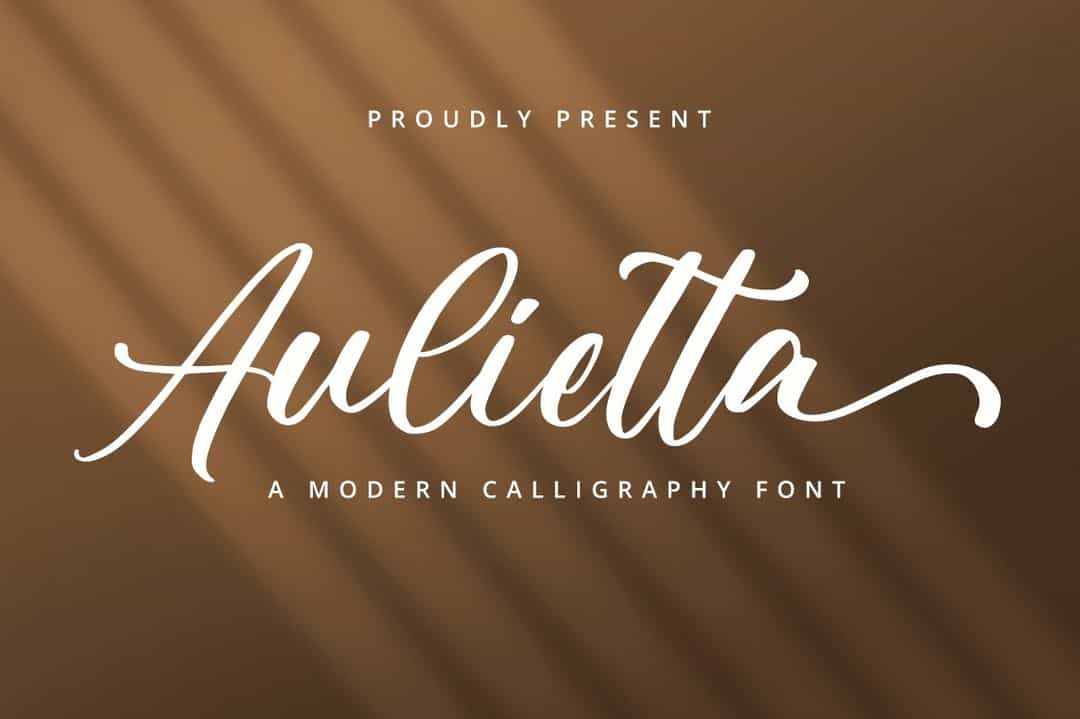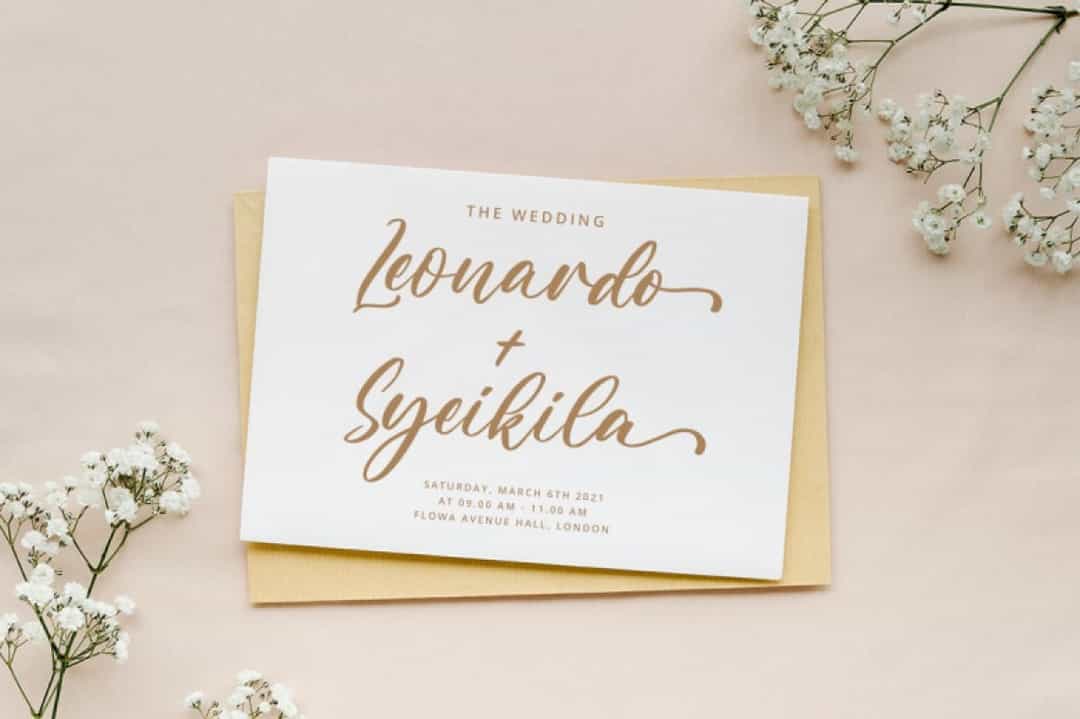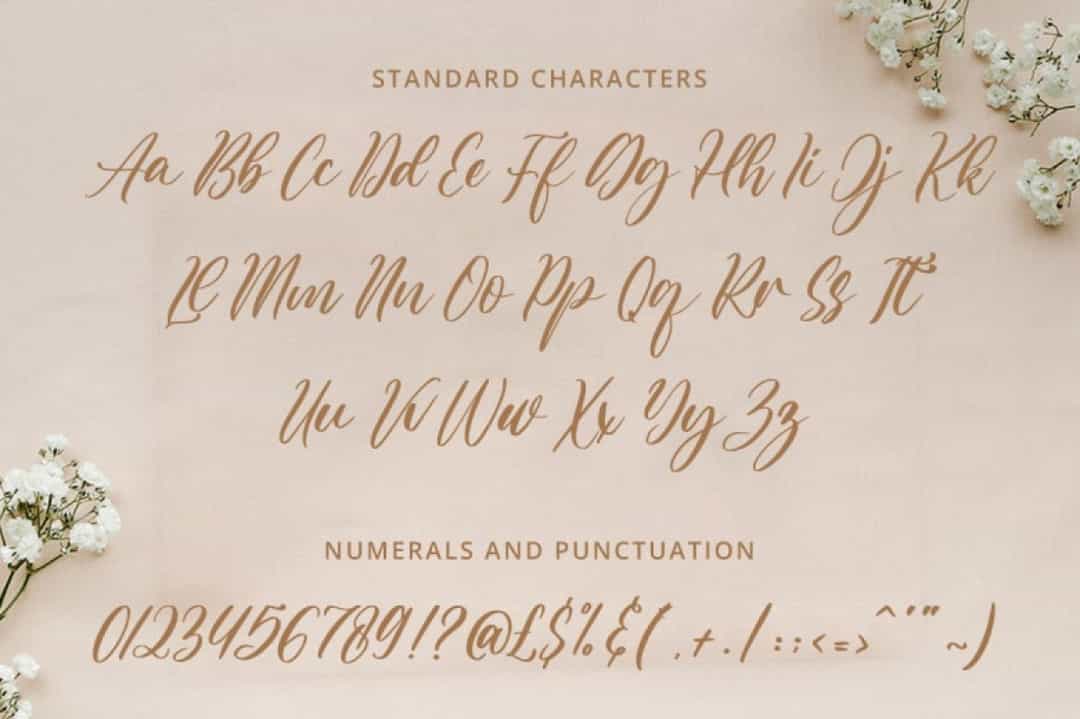
NissaStudio has created Aulietta Calligraphy Font as an elegant yet fluid handwritten script typeface for use on wedding invitations, stationary pieces, social media posts and greeting cards. Find inspiration in its real appearance to craft amazing creations such as beautiful invitations for weddings or events and beautiful greeting cards with its authentic appearance.